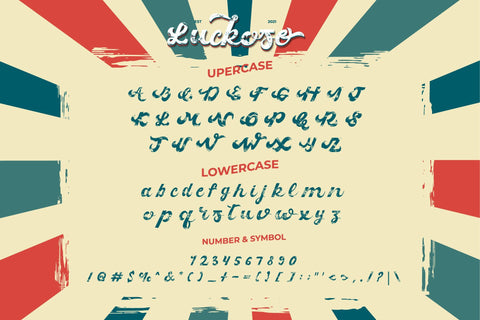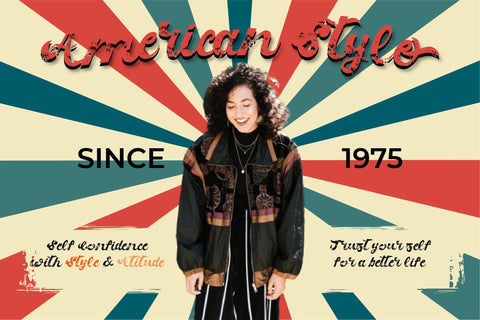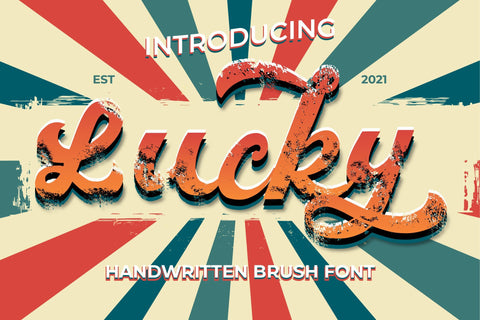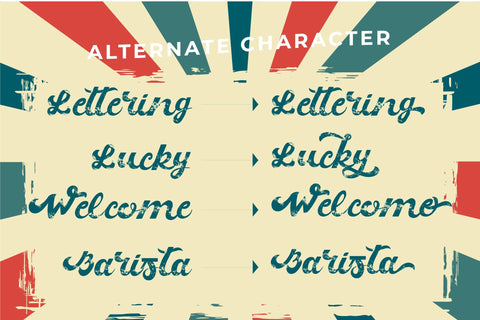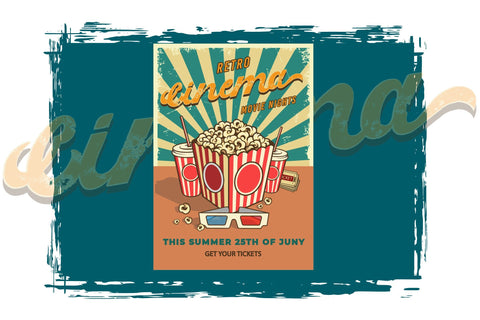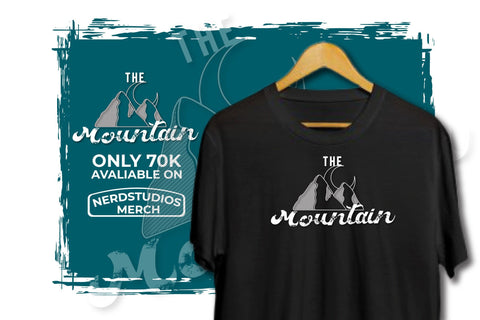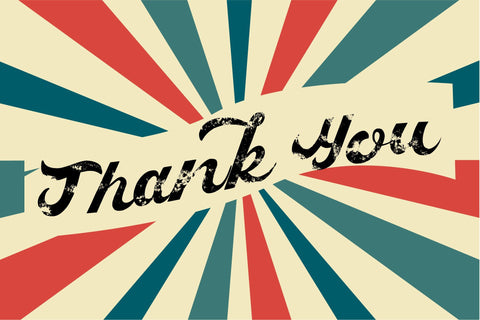
Lucky Handwritten Brush Font
Introducing, Lucky Handwritten Brush Font- a standout bold script with a touch of vintage look and feel. This type of font perfectly made to be applied especially in logo, headline, signage and the other various formal forms such as invitations, labels, logos, magazines, books, greeting / wedding cards, packaging, fashion, make up, stationery, novels, labels or any type of advertising purpose.
• uppercase & lowercase
• numbers and punctuation
• alternates / swashes and ligatures